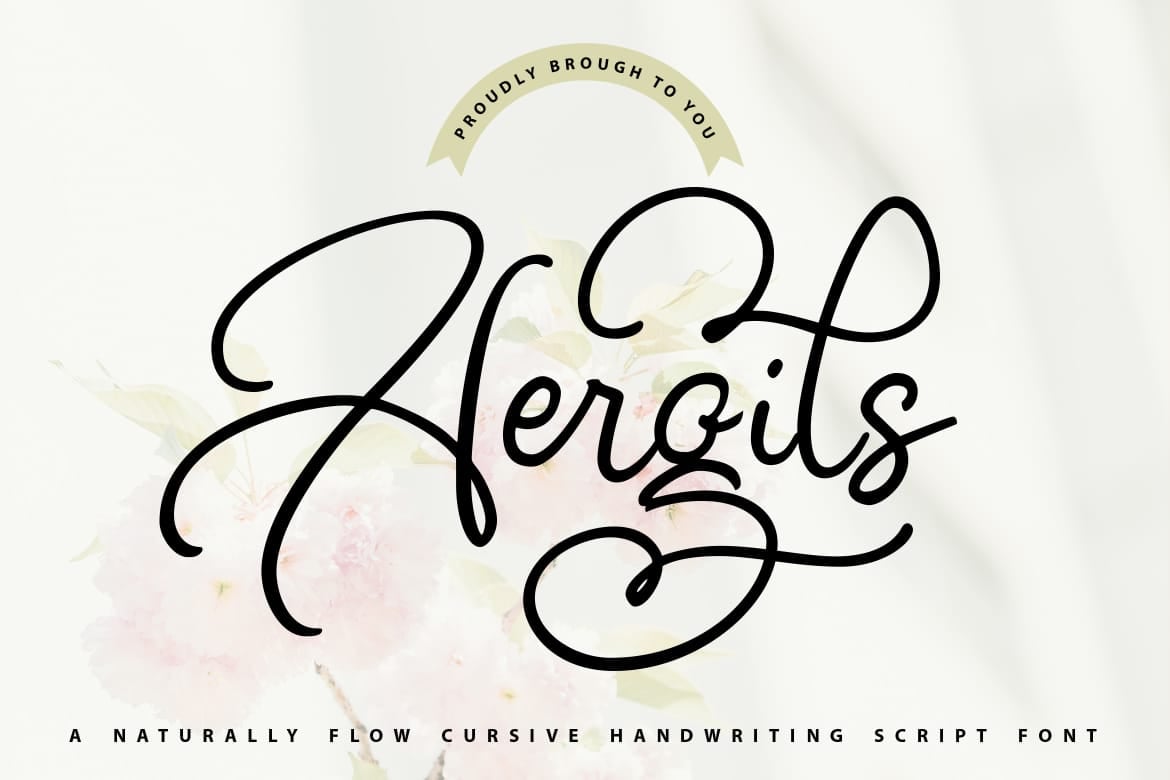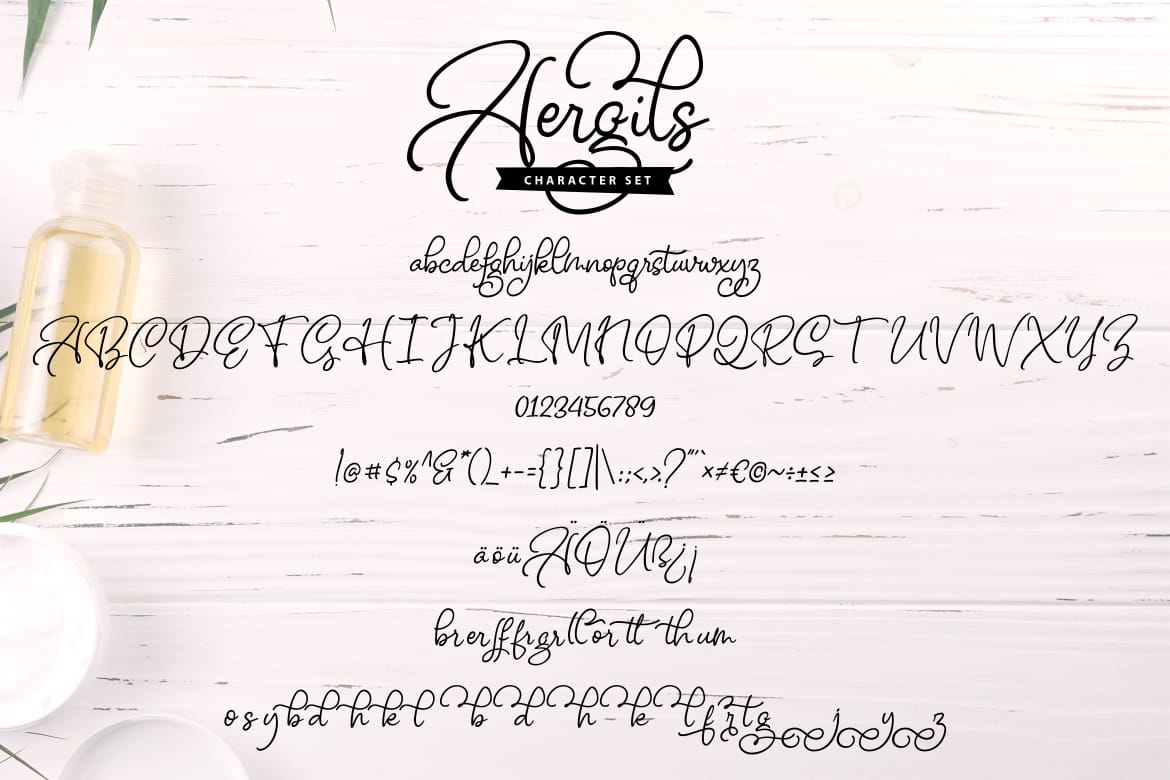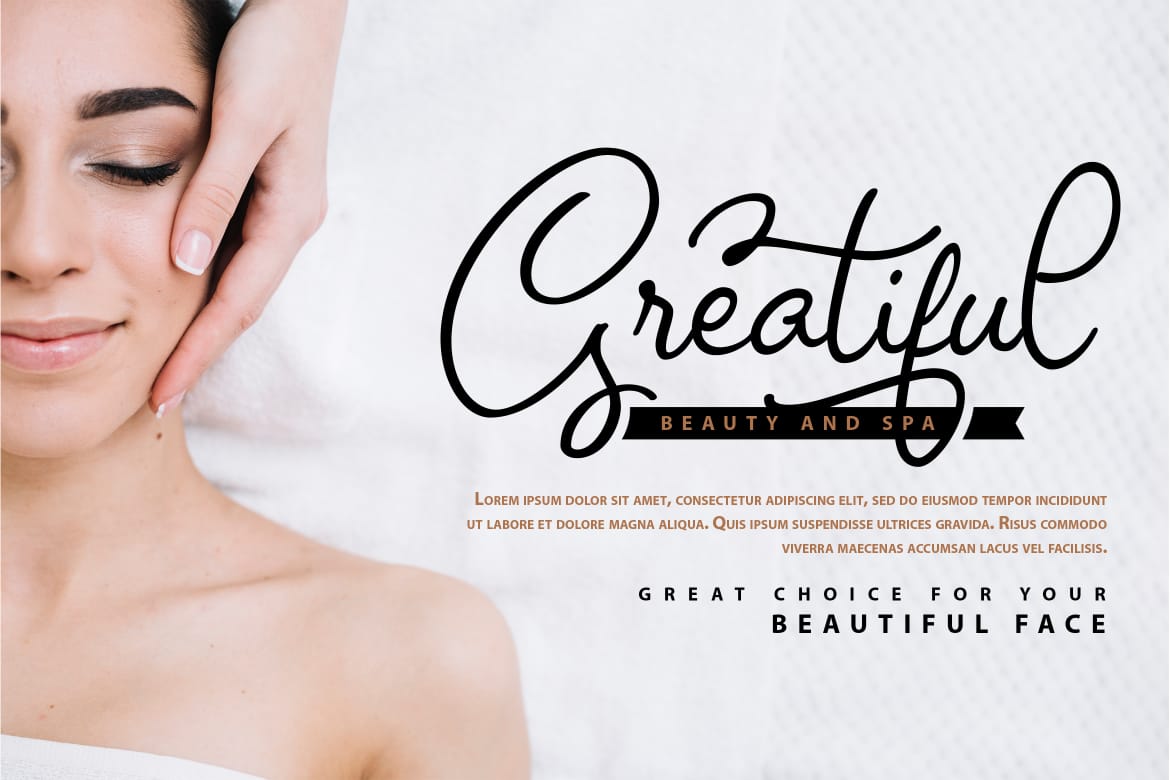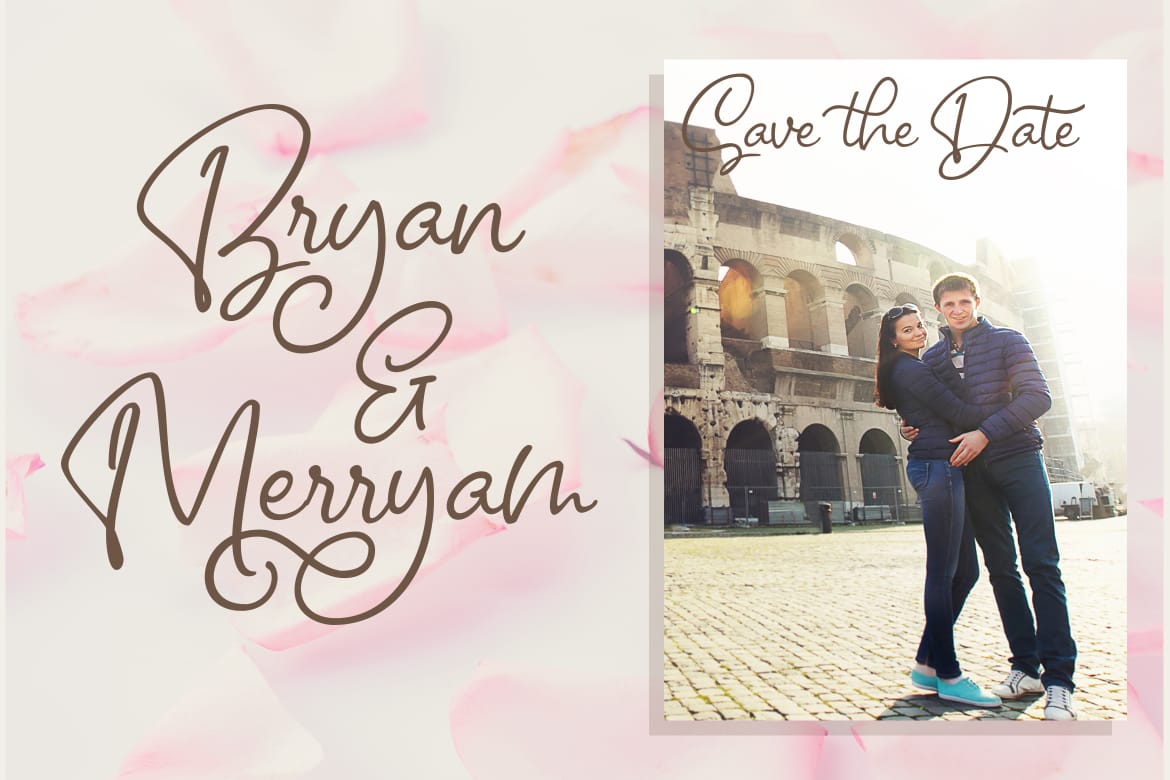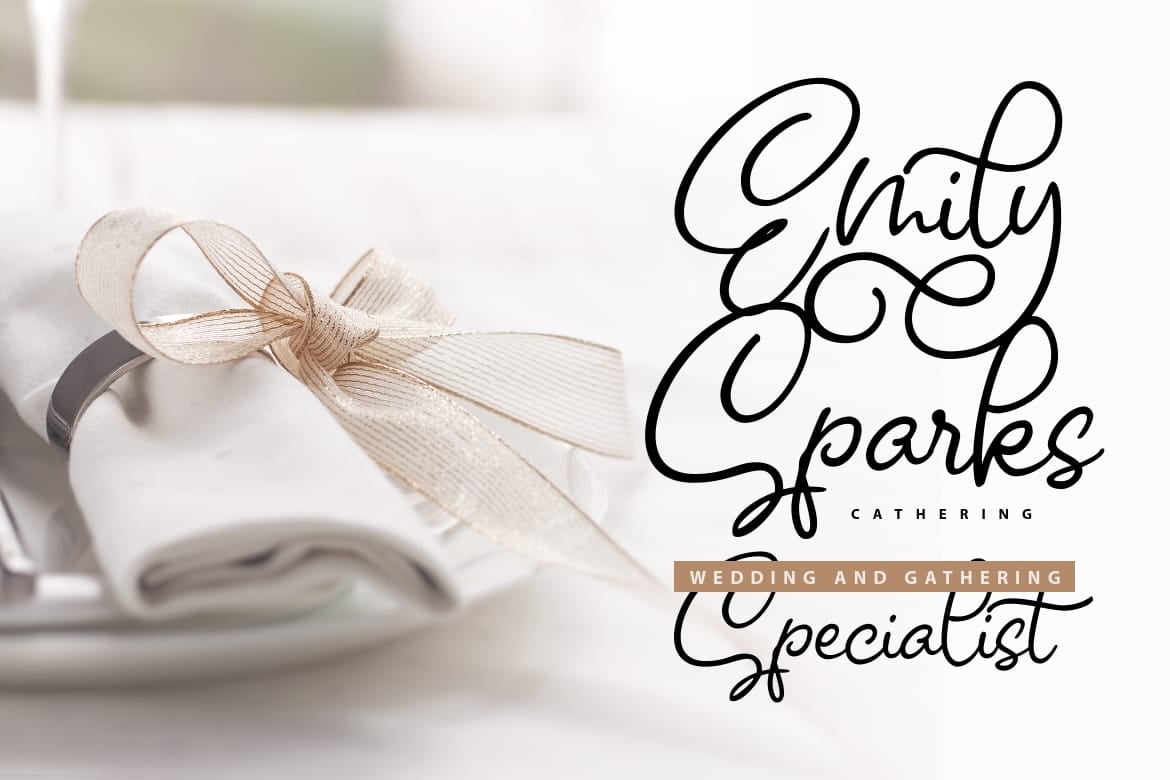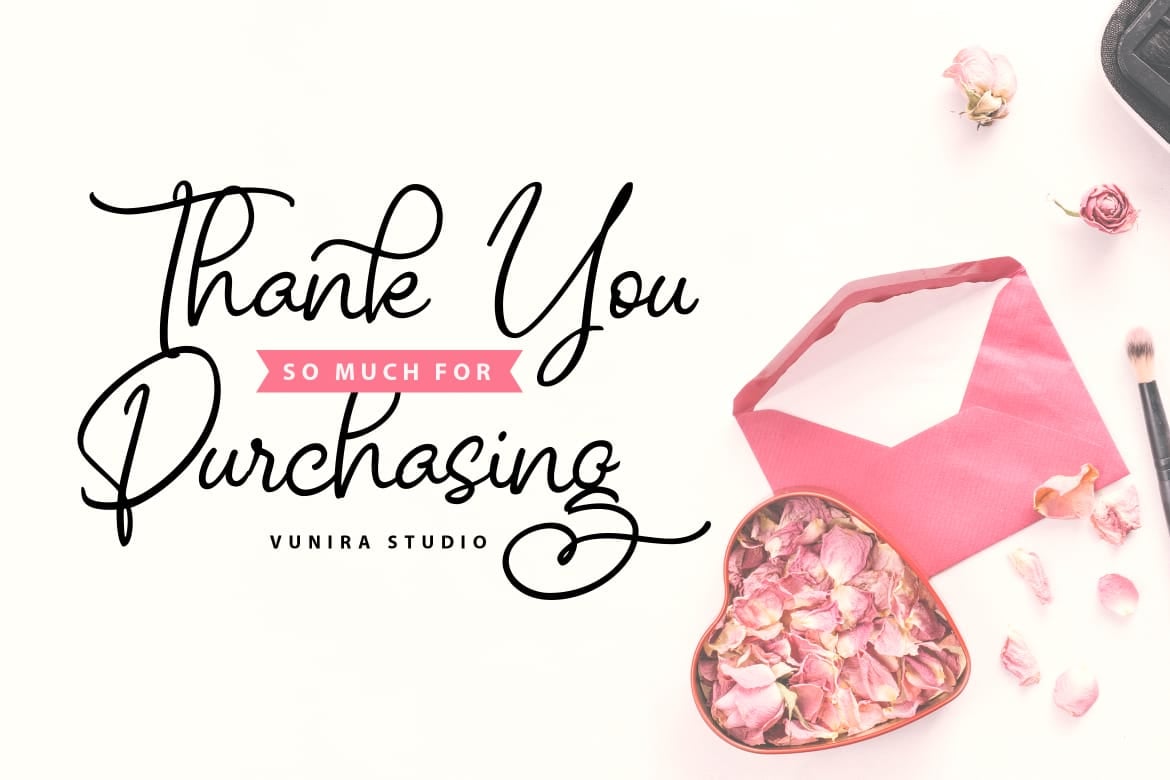
Aergils | Cursive Handwritting Script Font
Aergils | Cursive Handwritting Script Font with a calligraphy style, So beautiful on invitation like greeting cards, branding materials, business cards, quotes, posters, and more!